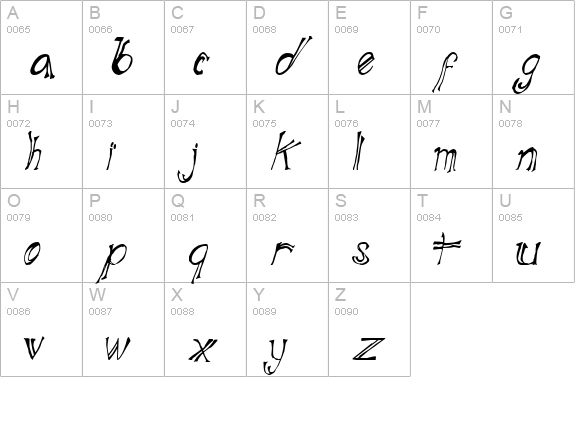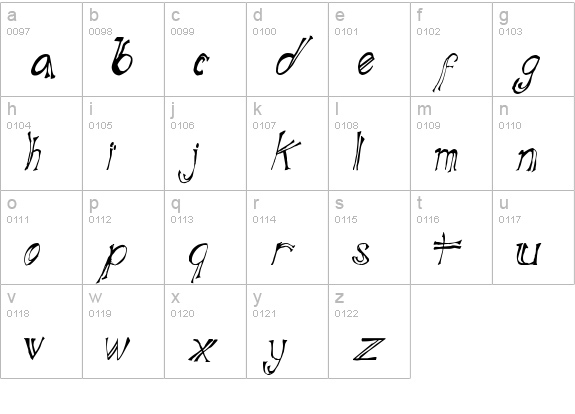
Introducing the captivating Blue Mutant Double Serif font, a unique and striking typeface that is sure to make your designs stand out. This font features distinct double serifs that add a touch of sophistication and personality to any project. With its bold and eye-catching appearance, Blue Mutant Double Serif is perfect for headlines, logos, posters, and more. What sets Blue Mutant Double Serif apart is not only its stunning design but also the fact that it is completely free to download. That's right, you can access this fantastic font at FontsMarket.com without any cost. Embrace the creativity and versatility of Blue Mutant Double Serif in your next design project and watch as it takes your work to the next level. Download now and let your imagination run wild with this amazing font!